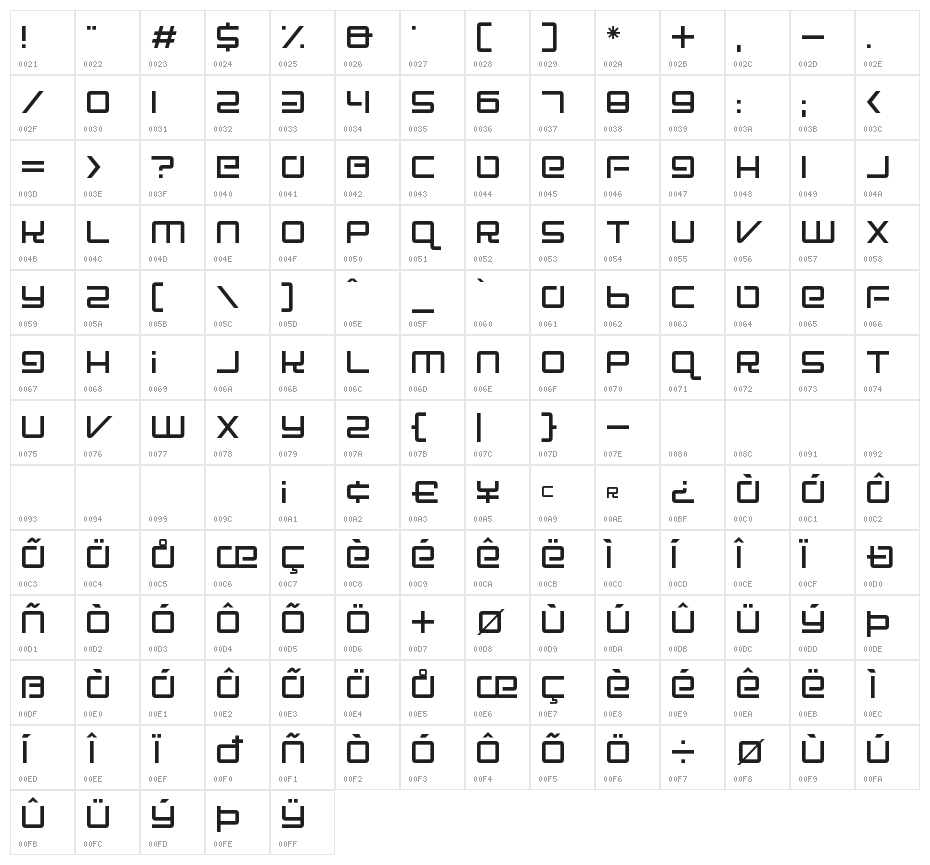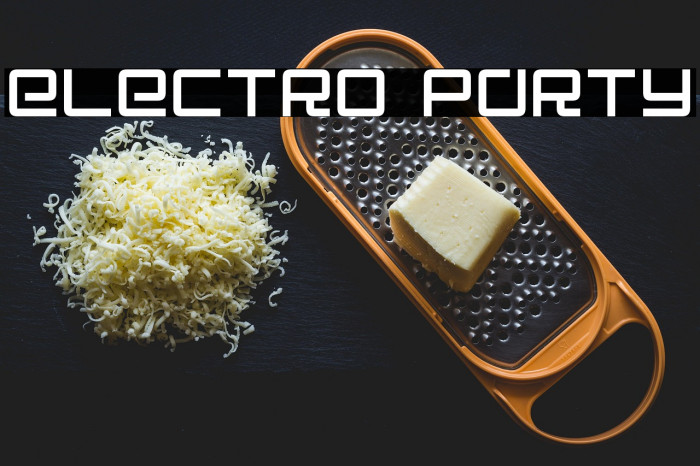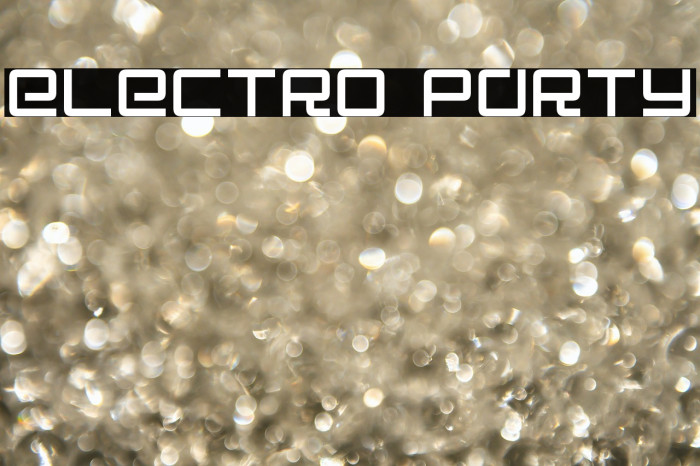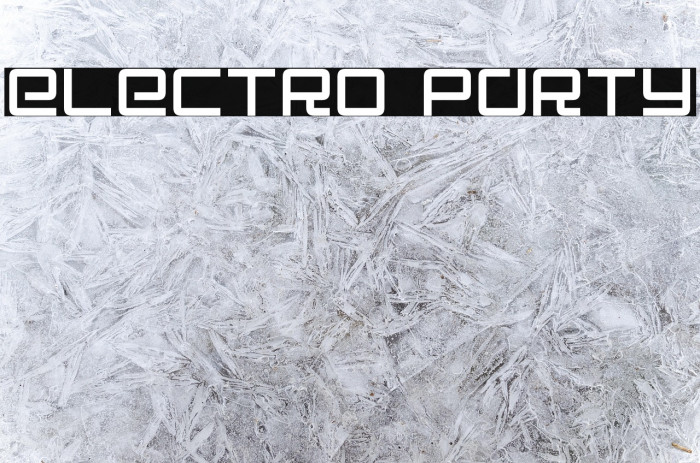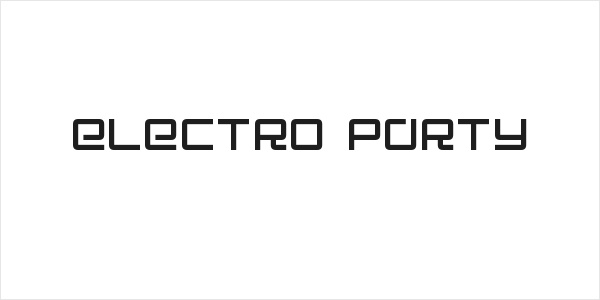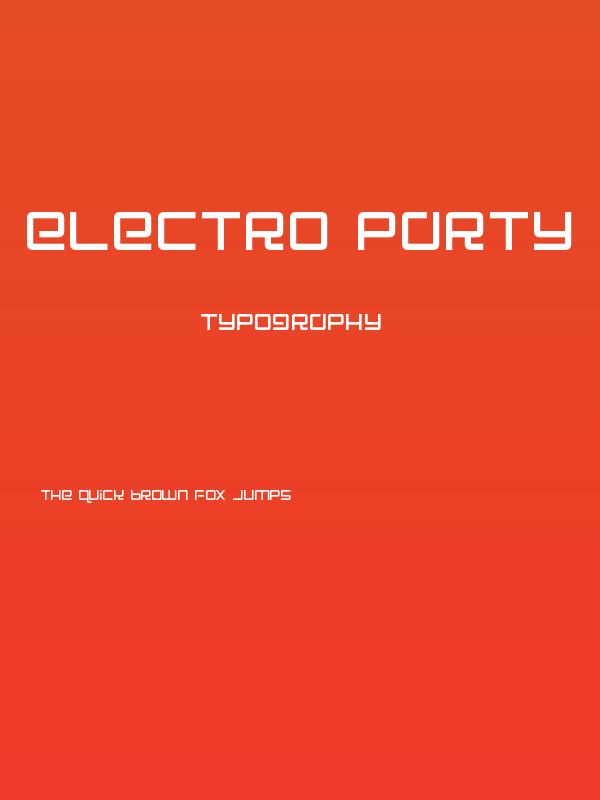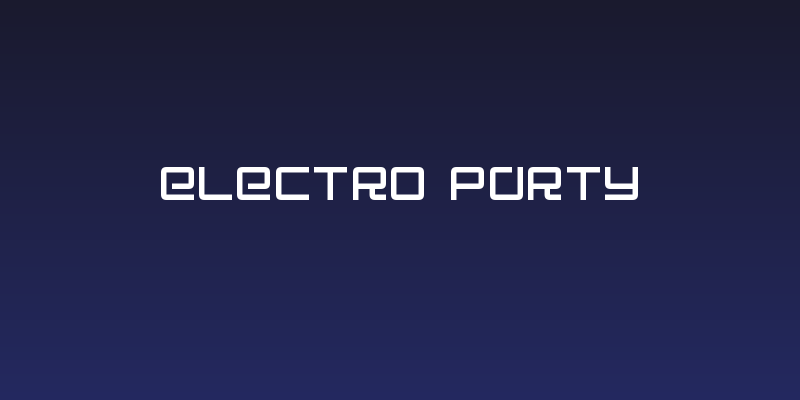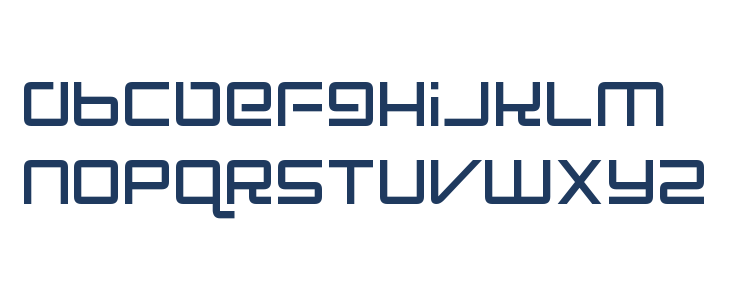
Electro Party Font
Electro Party Description
This font features a futuristic and geometric design with a strong emphasis on angular shapes and clean lines. The characters are constructed with a consistent stroke width, giving it a uniform appearance. The uppercase and lowercase letters maintain a similar height, contributing to its modern and streamlined look. The numerals and special characters are designed to match the overall aesthetic, making it suitable for digital and tech-themed projects. Its distinct style is both eye-catching and functional, ideal for conveying a sense of innovation and modernity.
| Overall Style | Futuristic |
| Proposed Projects | Ideal for tech branding, digital interfaces, video game titles, and sci-fi themed posters. |